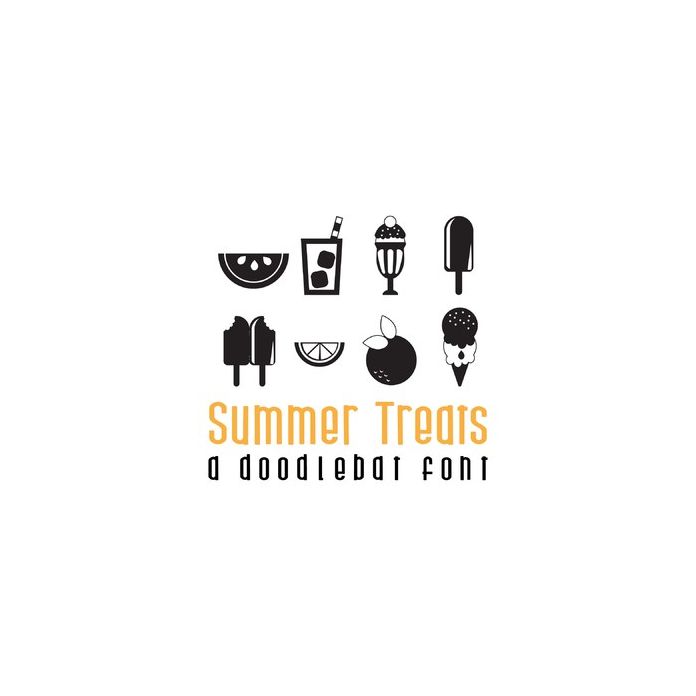
This fun doodlebat font features 26 fun summer treats including some frames and cards. Perfect for cards, gifts, decor, crafts, scrap book pages, planner stickers and more!